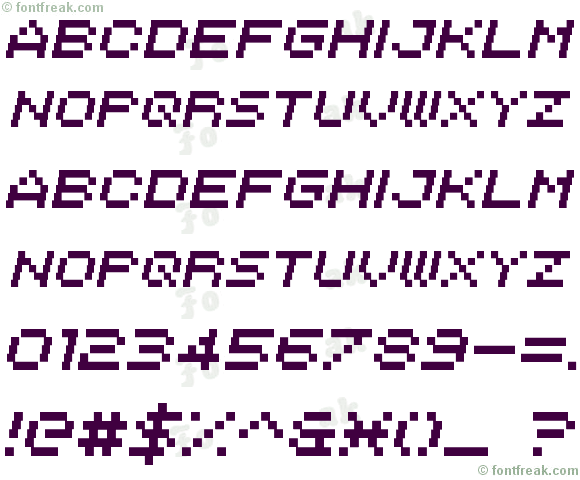
Italipixel Regular
About Italipixel Regular
Italipixel Regular, designed by Andrew McCluskey in 2014, is a distinctive display font that captures the essence of retro digital typography. This font belongs to the pixel style category, characterized by its blocky, pixelated appearance that evokes nostalgia for early computer graphics. The stroke weight is consistent throughout the character set, offering a uniform look that enhances readability while retaining a unique aesthetic. The spacing between characters is tight, contributing to a compact overall impression that is perfect for headlines or titles.
Italipixel Regular is an excellent choice for a variety of creative projects. Its unique visual appeal makes it ideal for video game graphics, where a retro or digital theme is desired. It can also be effectively used in movie posters, especially those that aim for a vintage sci-fi or action feel. Additionally, this font is well-suited for branding in tech startups, as it conveys a modern yet playful vibe. For those in the culinary industry, Italipixel Regular can bring a fun twist to restaurant menus or promotional materials, capturing the attention of potential customers.
What sets Italipixel Regular apart is its ability to blend playful retro aesthetics with versatility. Whether for digital applications or print, this font delivers a striking visual impact that can elevate any design project. For those interested in incorporating this unique typeface, the Italipixel Regular font free download is readily available, allowing creators to explore its potential without limitations.